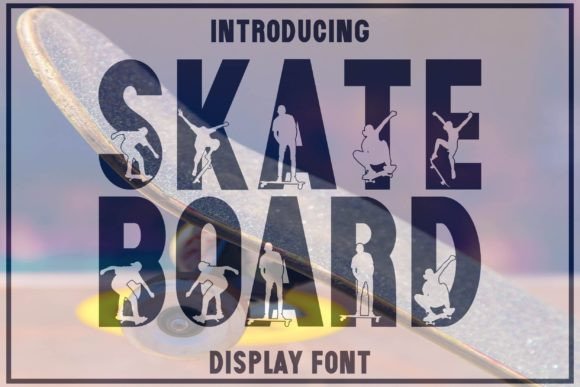
Step into the world of expressive typography with Skateboard Font - a creation of Phongsakon Phonkhammak that will add an edge of originality to all your creative endeavors. Skateboard Font is a style of its own, a decorative font family born to transform your designs from ordinary to extraordinary. Its free-spirited charm makes it the perfect companion for projects that crave a distinctive touch.
Picture your designs adorned with this unique font, captivating your audience with its boldness and playful vibe. Skateboard Font is a treat to the eyes, adding an artistic flair whether on posters, thank-you cards, inspiring quotes, or greeting cards. Its versatility extends to logos, business cards, and any design that seeks a touch of creativity.
With Skateboard Font, your words become visual masterpieces, conveying emotions that transcend the boundaries of language. Its strokes dance across the page, evoking a sense of adventure and youthful energy that resonates with the modern, free-spirited soul. This font is more than just letters; it's a statement, an expression of your individuality and style.
Join the creative revolution and let Skateboard Font be your weapon of choice. Unveil your artistic vision with each stroke, each word, and each design. Push the boundaries of creativity and make a statement that speaks volumes. Make your designs stand out and make a lasting impression. With Skateboard Font, the possibilities are endless. Own it today and let your creativity soar.